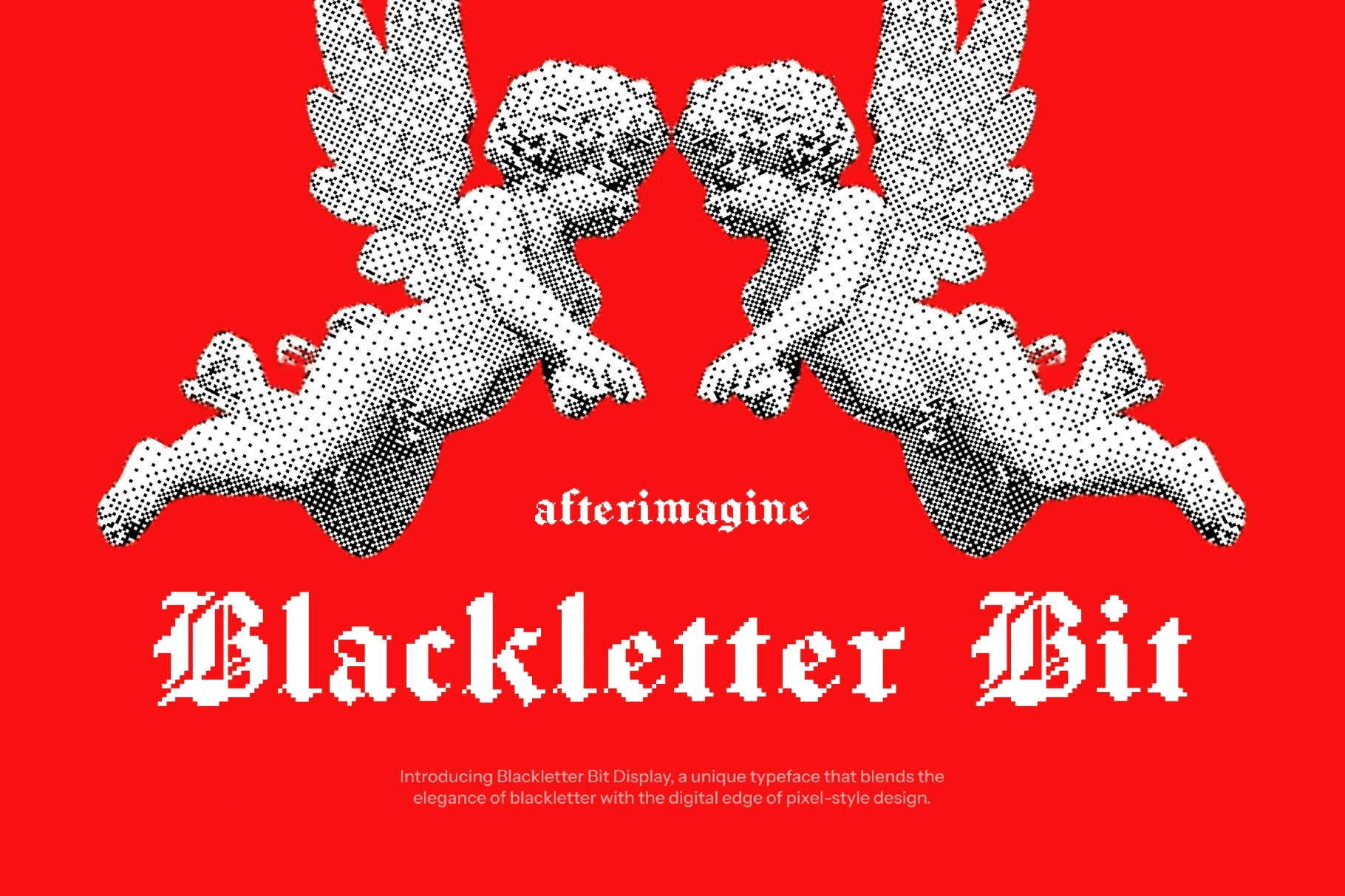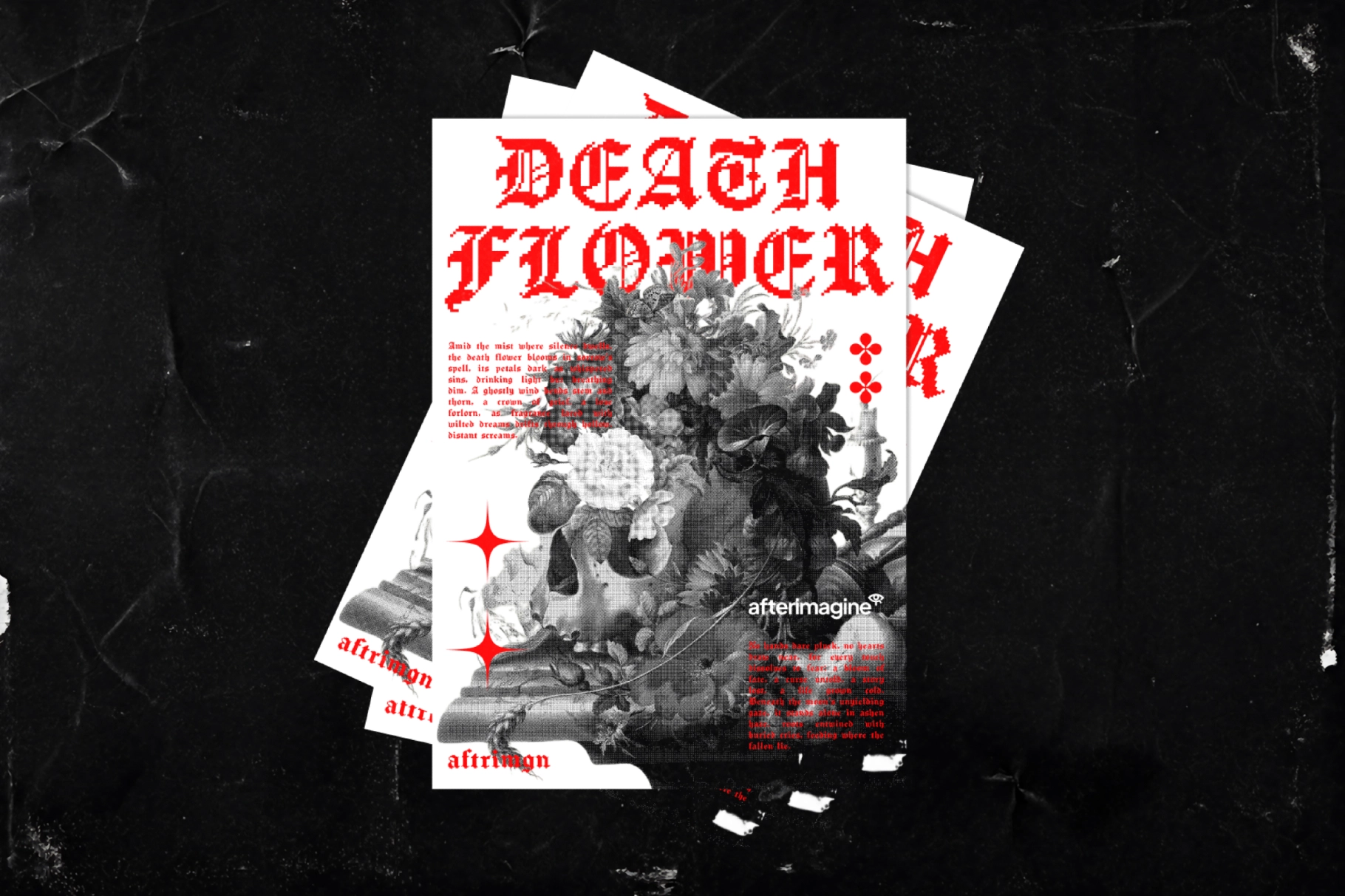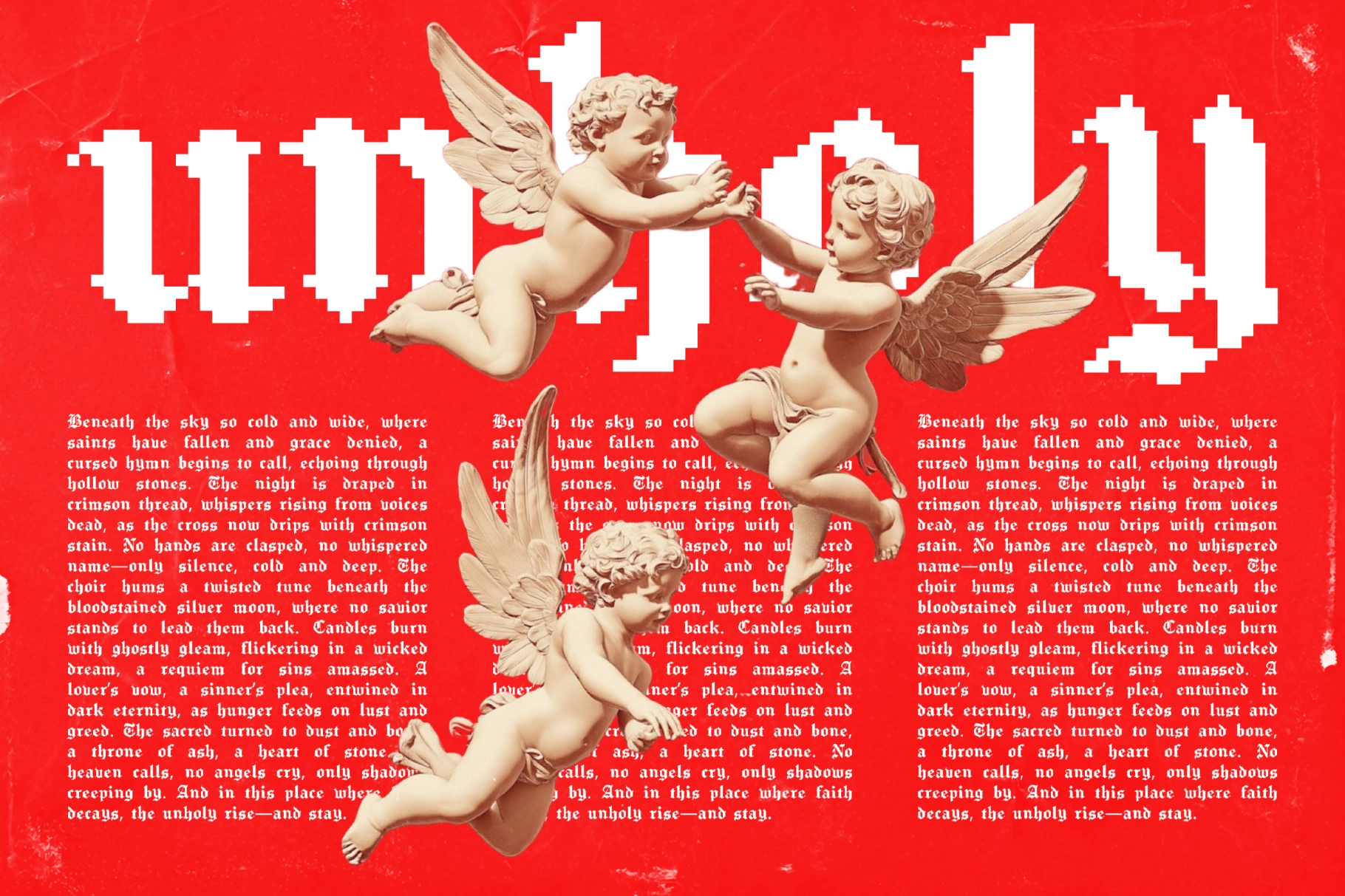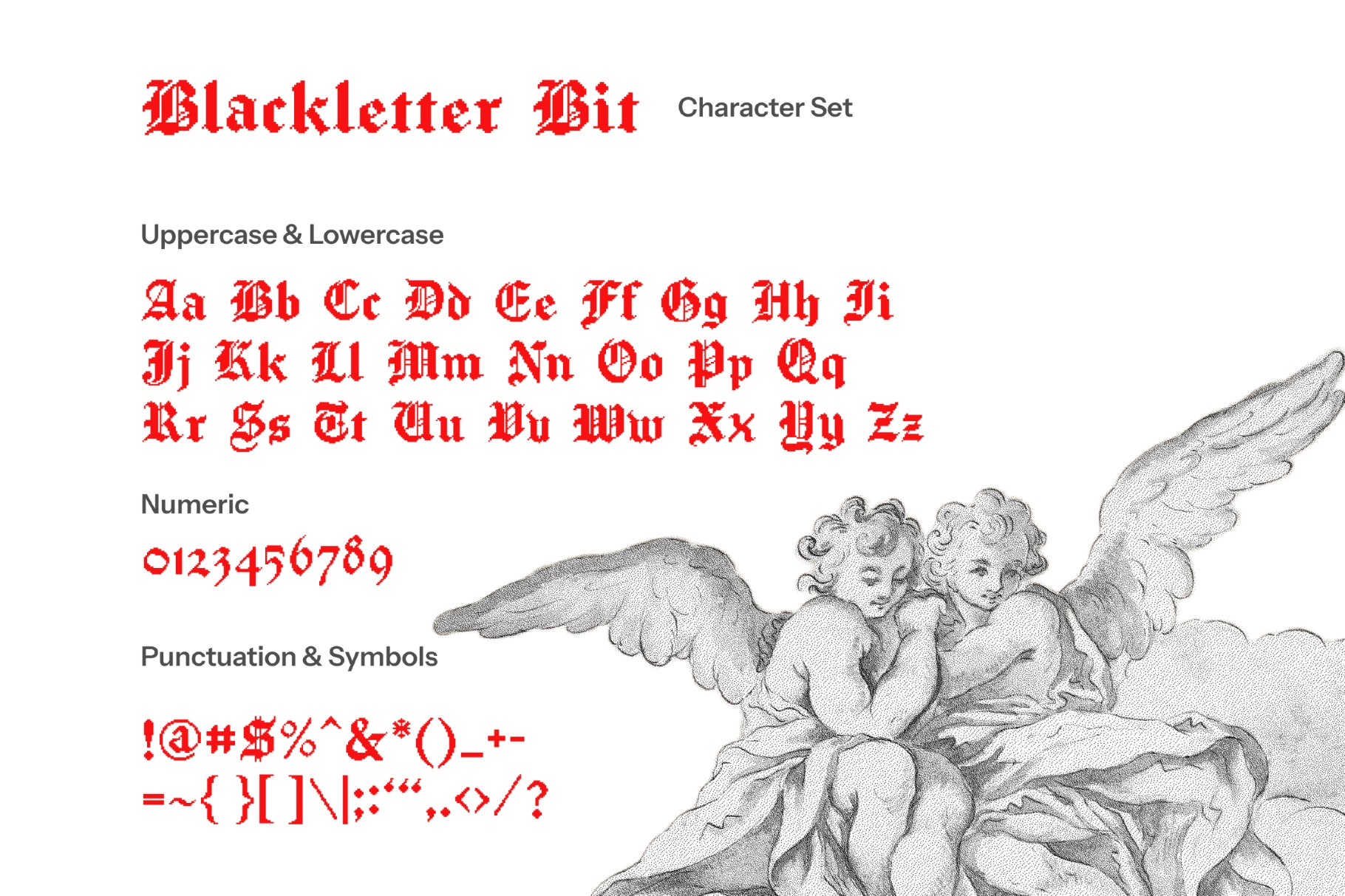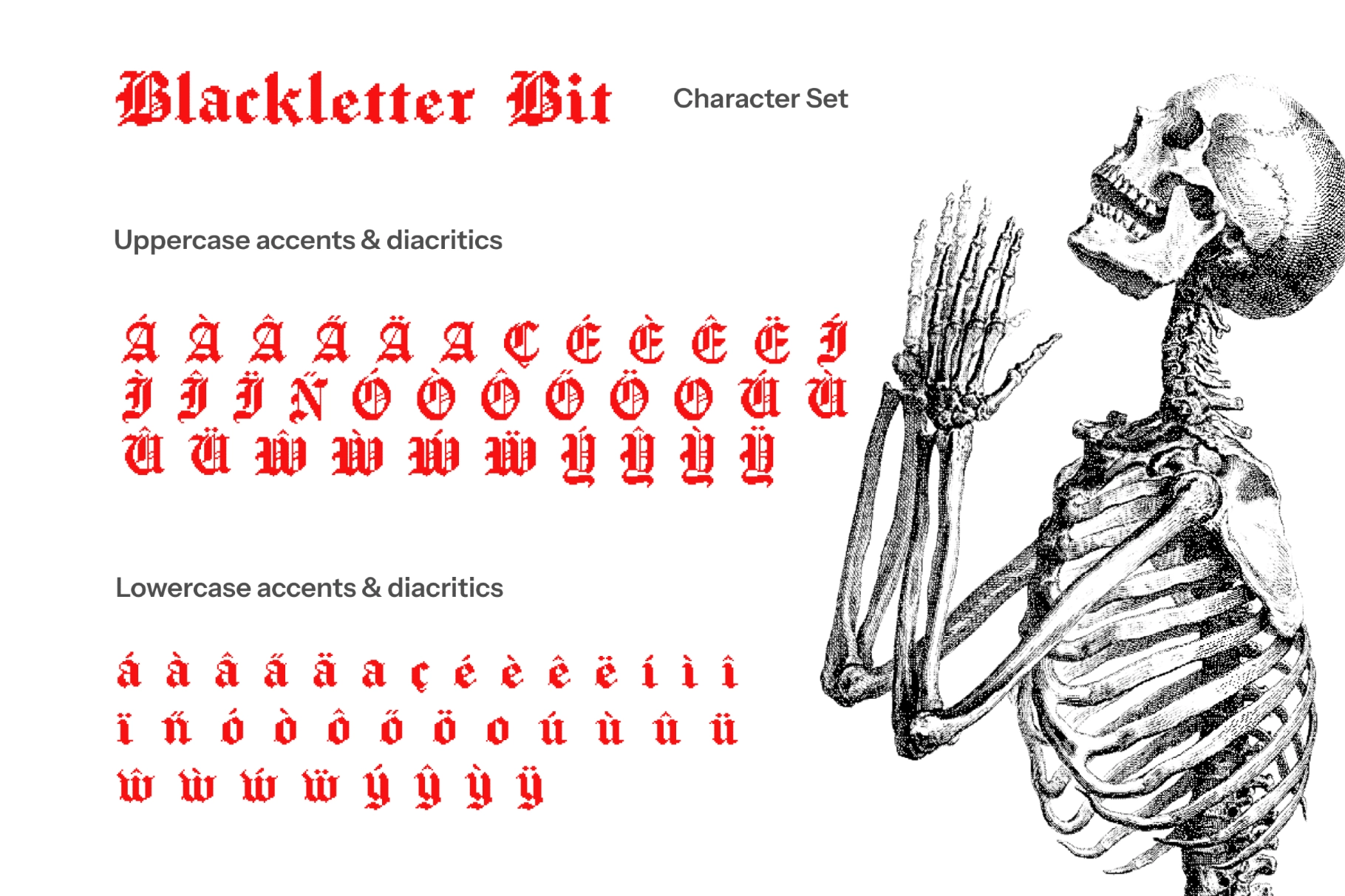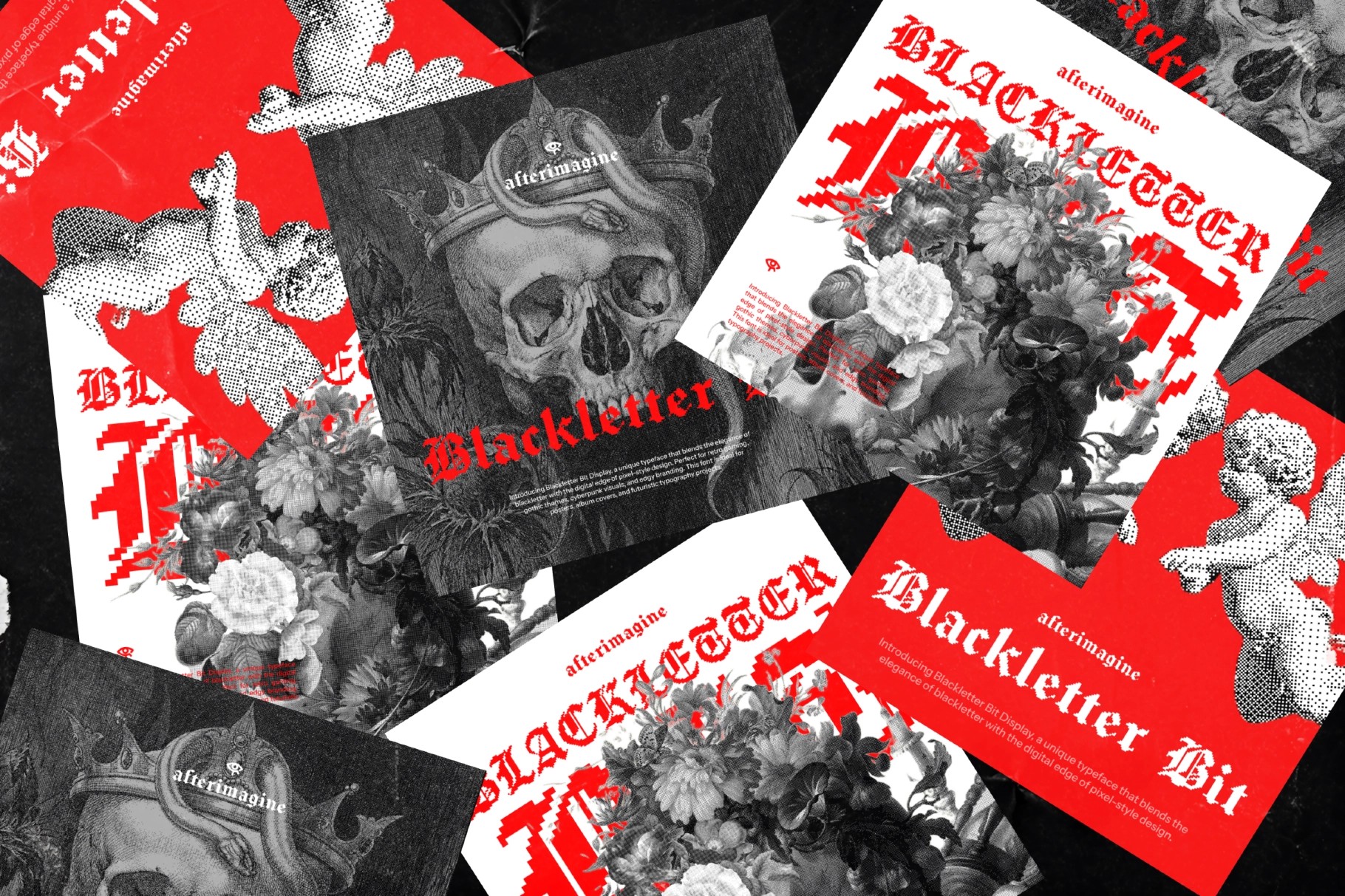
Blackletter Bit
BlackletterBit
Introducing Blackletter Bit Display, a unique typeface that blends the elegance of blackletter with the digital edge of pixel-style design. A bold fusion of blackletter and pixel aesthetics. Perfect for retro gaming, gothic themes, cyberpunk visuals, and edgy branding. This font is ideal for posters, album covers, and futuristic typography projects.